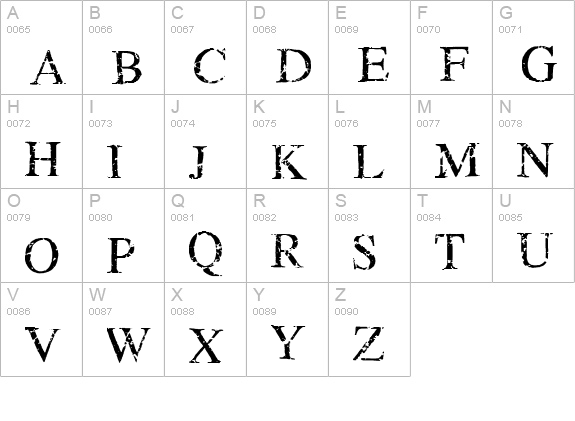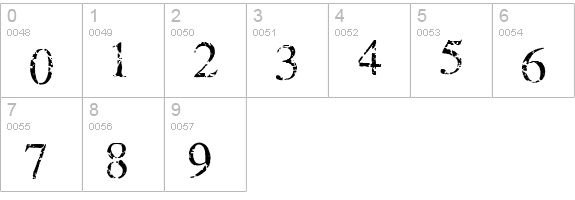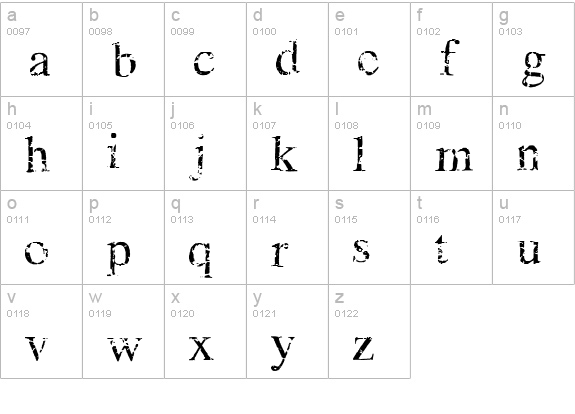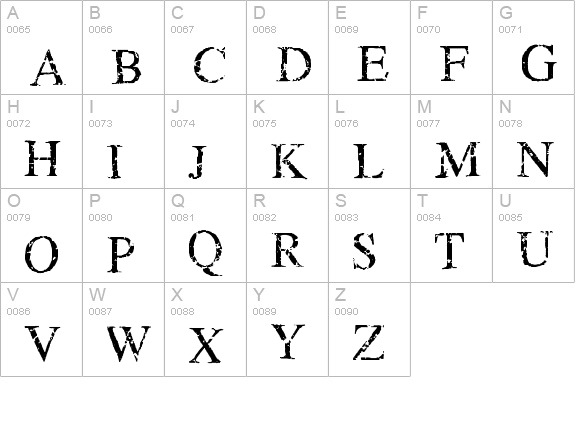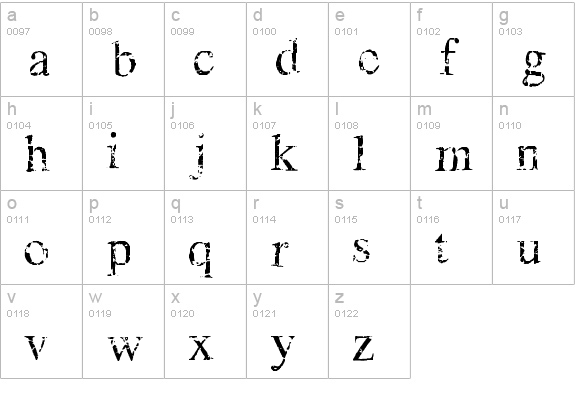
Lots of Dead Crack Babies Font Details
The Lots of Dead Crack Babies font is a unique and edgy typeface that exudes a bold and rebellious vibe. With its sharp angles and distressed appearance, this font is perfect for projects that require a gritty and urban aesthetic. The jagged edges and uneven lines of the characters give this font a raw and unapologetic feel, making it ideal for designs that aim to make a powerful statement. Despite its controversial name, the Lots of Dead Crack Babies font is freely available to download at FontsMarket.com. This means that you can easily incorporate this striking font into your projects without any cost. Whether you're working on a poster, logo, or branding design, the Lots of Dead Crack Babies font will add a touch of attitude and originality to your work. Don't miss out on the opportunity to use this eye-catching font in your next project. Download the Lots of Dead Crack Babies font today and unleash your creativity with its bold and daring style.